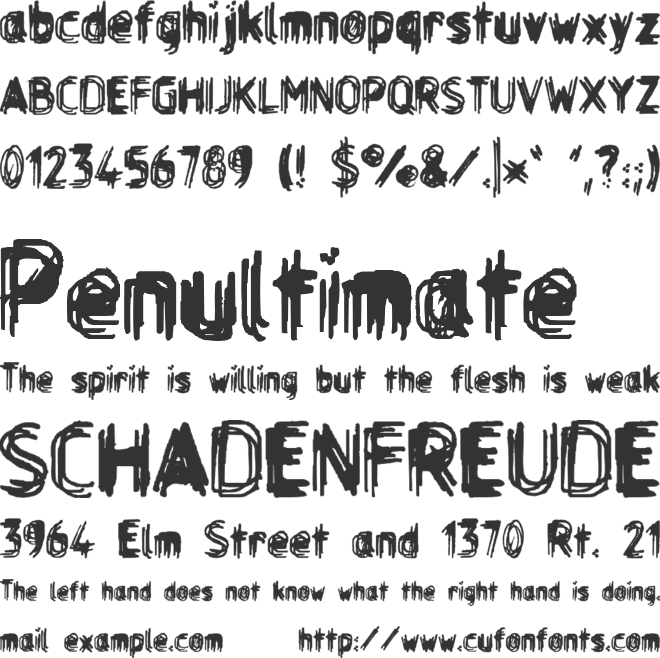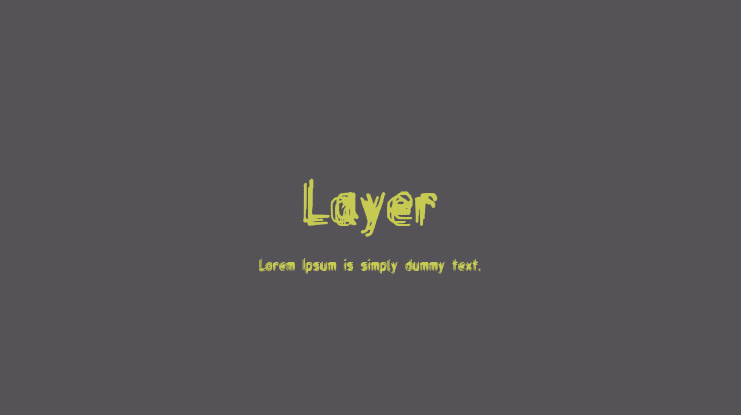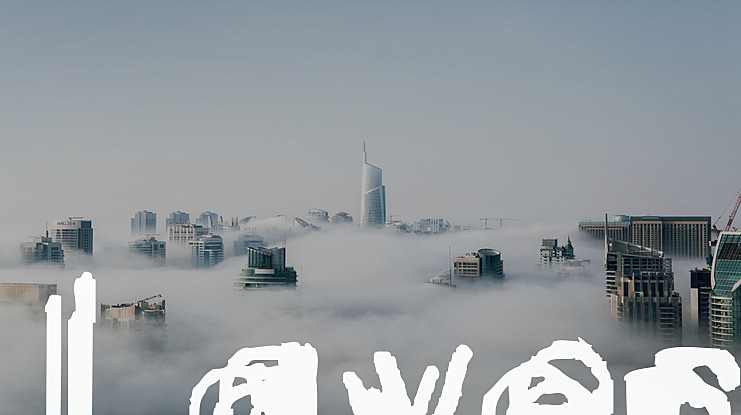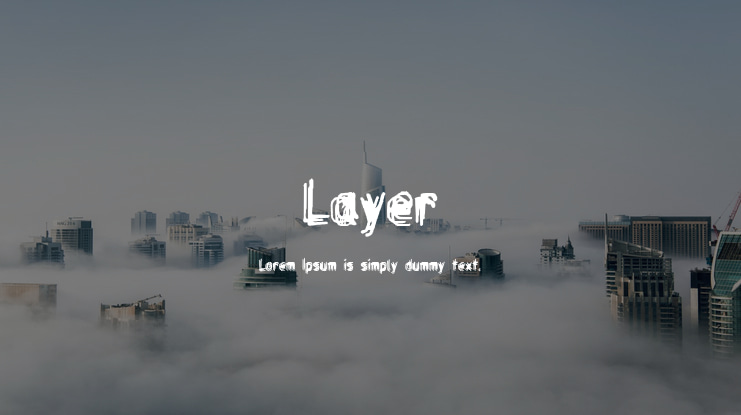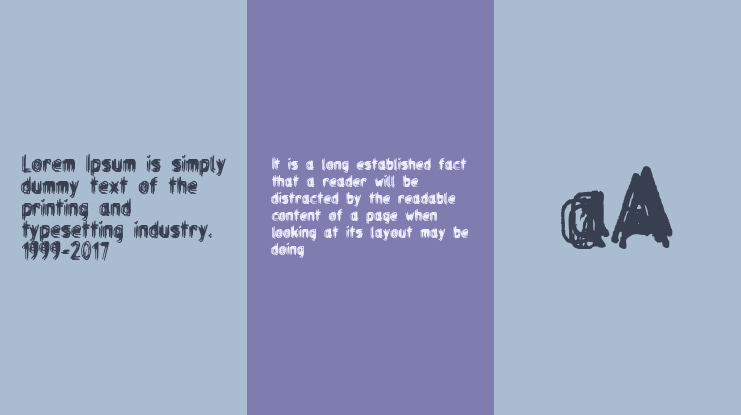
Layer Font
Template face under Acid, In order of Chaos! And remember : no drug, just music... This very complete font includes all signs and accents, and was released in August 1996.